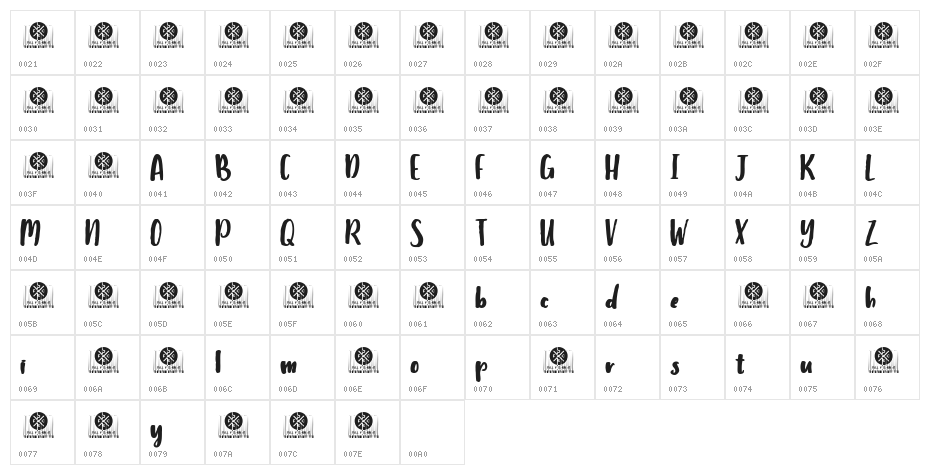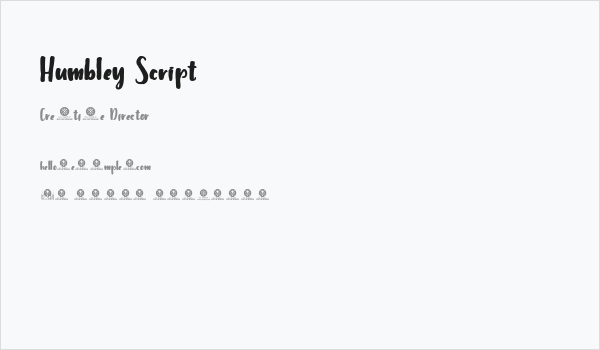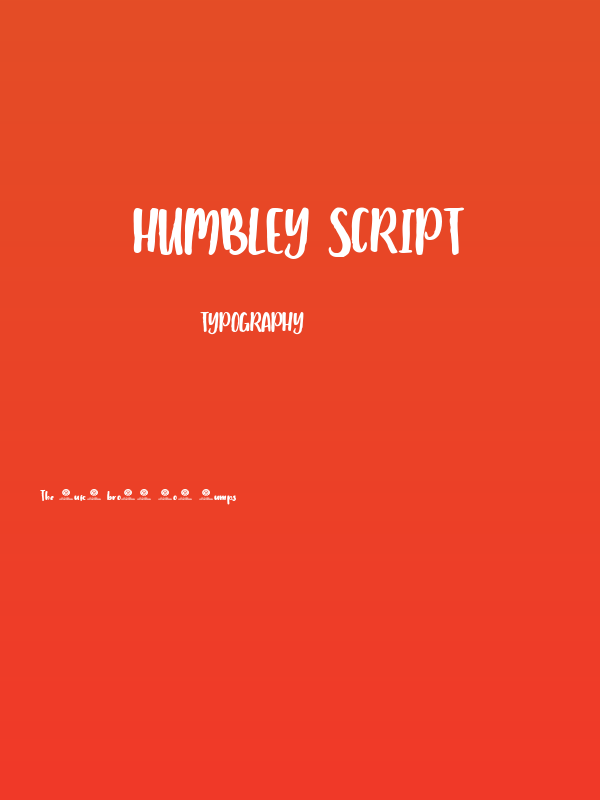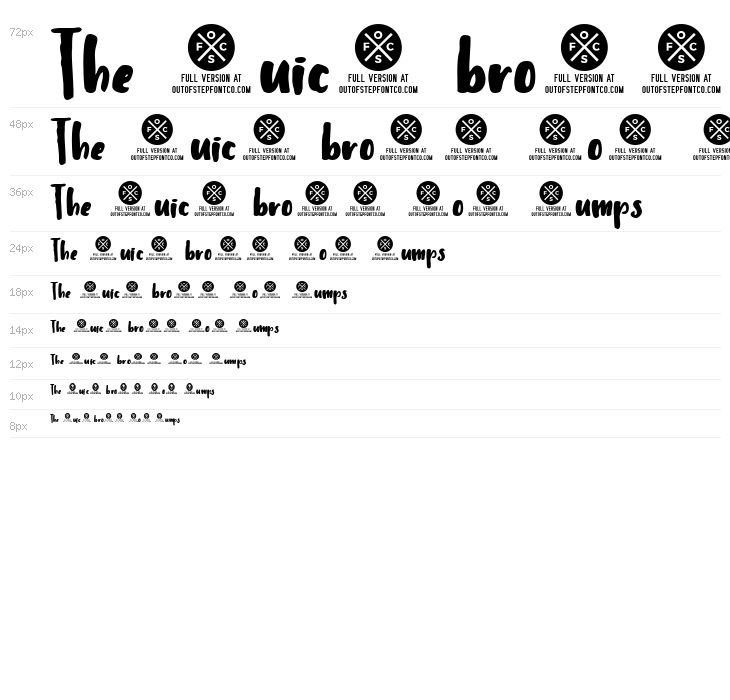
Humbley Script Font
Humbley Script Description
This font exhibits a bold and flowing script style, characterized by its smooth, connected strokes and a handwritten aesthetic. The uppercase letters are tall and slightly condensed, giving a sense of elegance and fluidity. The lowercase letters maintain a consistent flow, with rounded forms and a casual, yet sophisticated appearance. The overall design is modern and artistic, making it suitable for creative and expressive projects. The font's playful yet refined nature makes it versatile for various design applications.
| Width | Condensed |
| Use Case | Logos, Headlines, Invitations |
| Proposed Projects | Ideal for branding, invitations, greeting cards, and artistic projects that require a personal touch. |